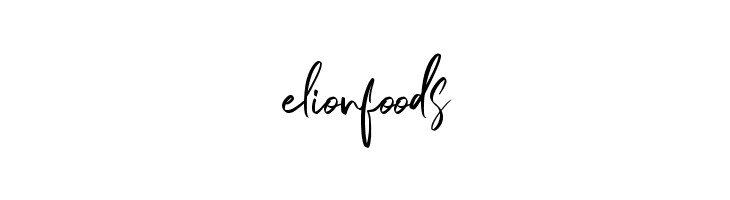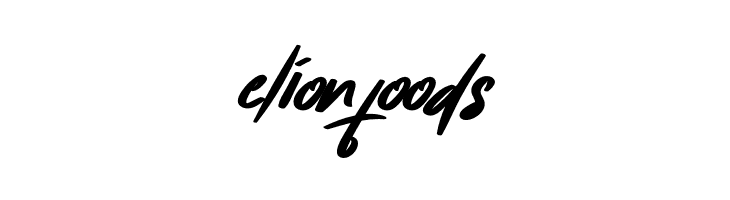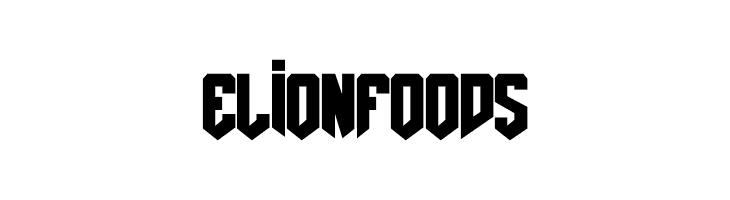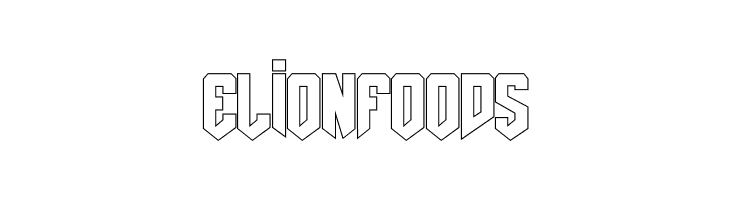
A bold, angular font with a futuristic and aggressive style.
A bold, geometric outline font with a futuristic and dynamic style.
A playful, hand-drawn font with a whimsical and casual style.
A playful, handwritten font with rounded edges and a casual style.
Bold, expressive handwritten script font.
A lively and expressive script font with dynamic curves and fluid strokes.
A lively, handwritten-style font with fluid, dynamic strokes.